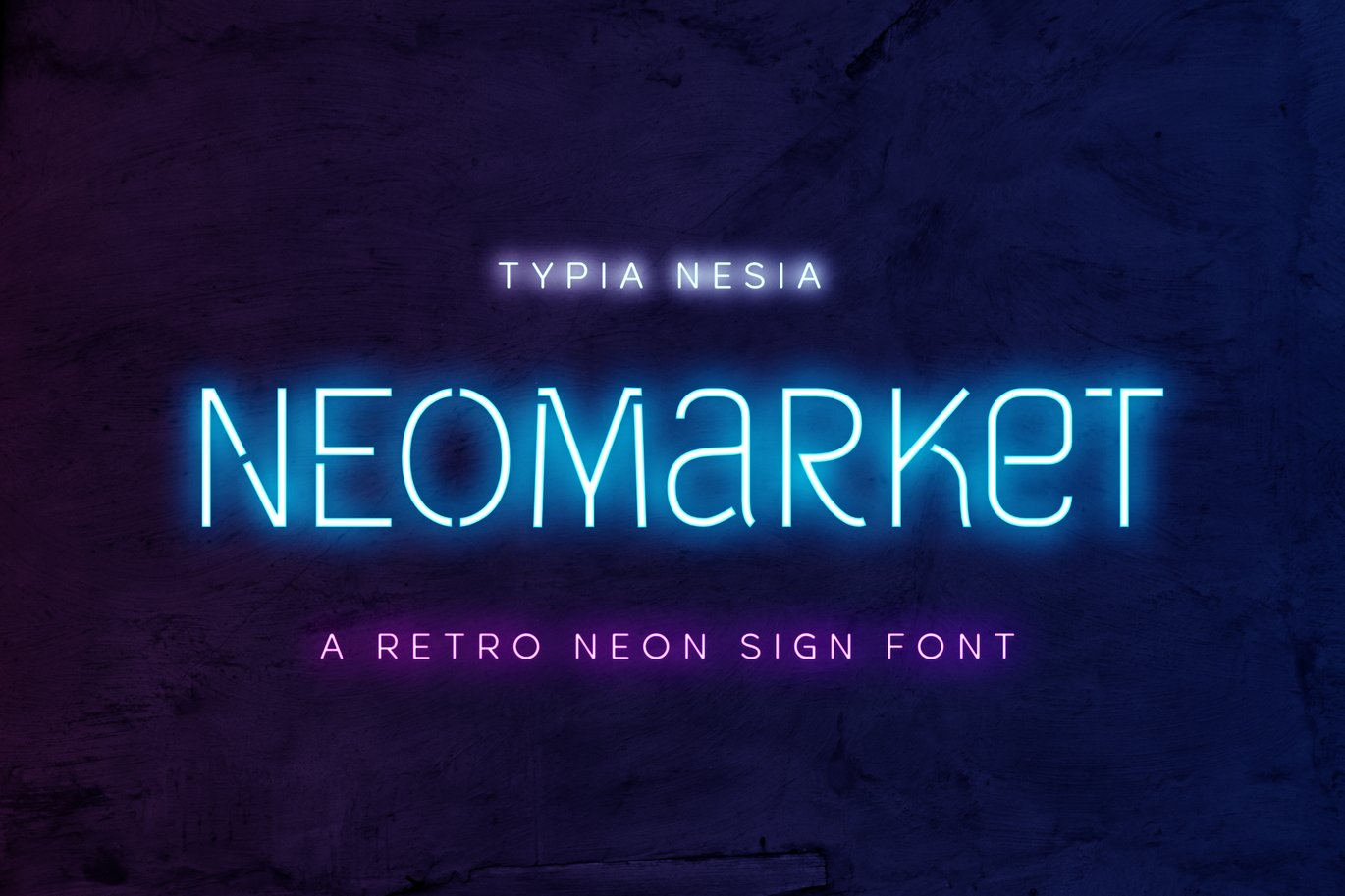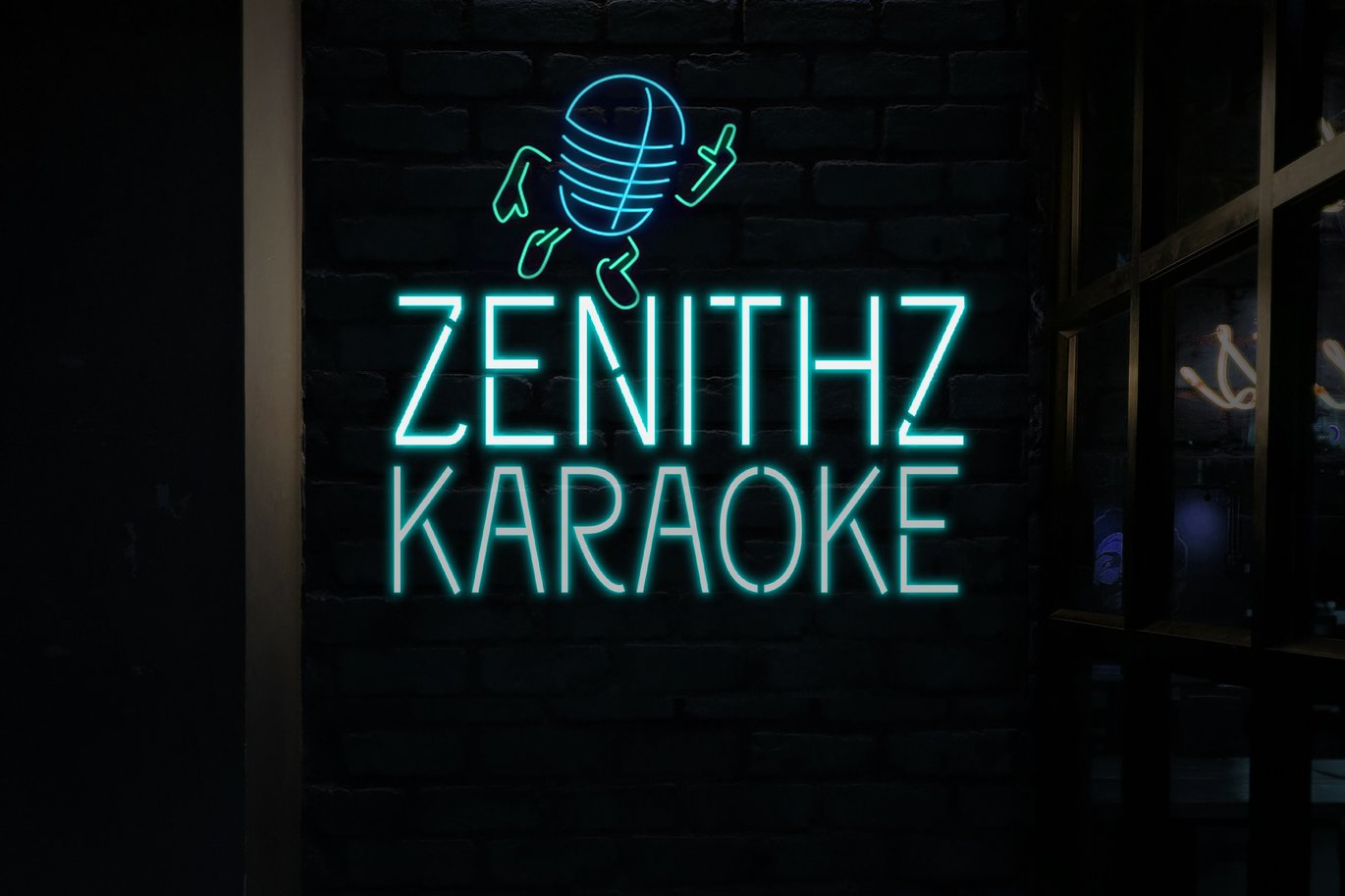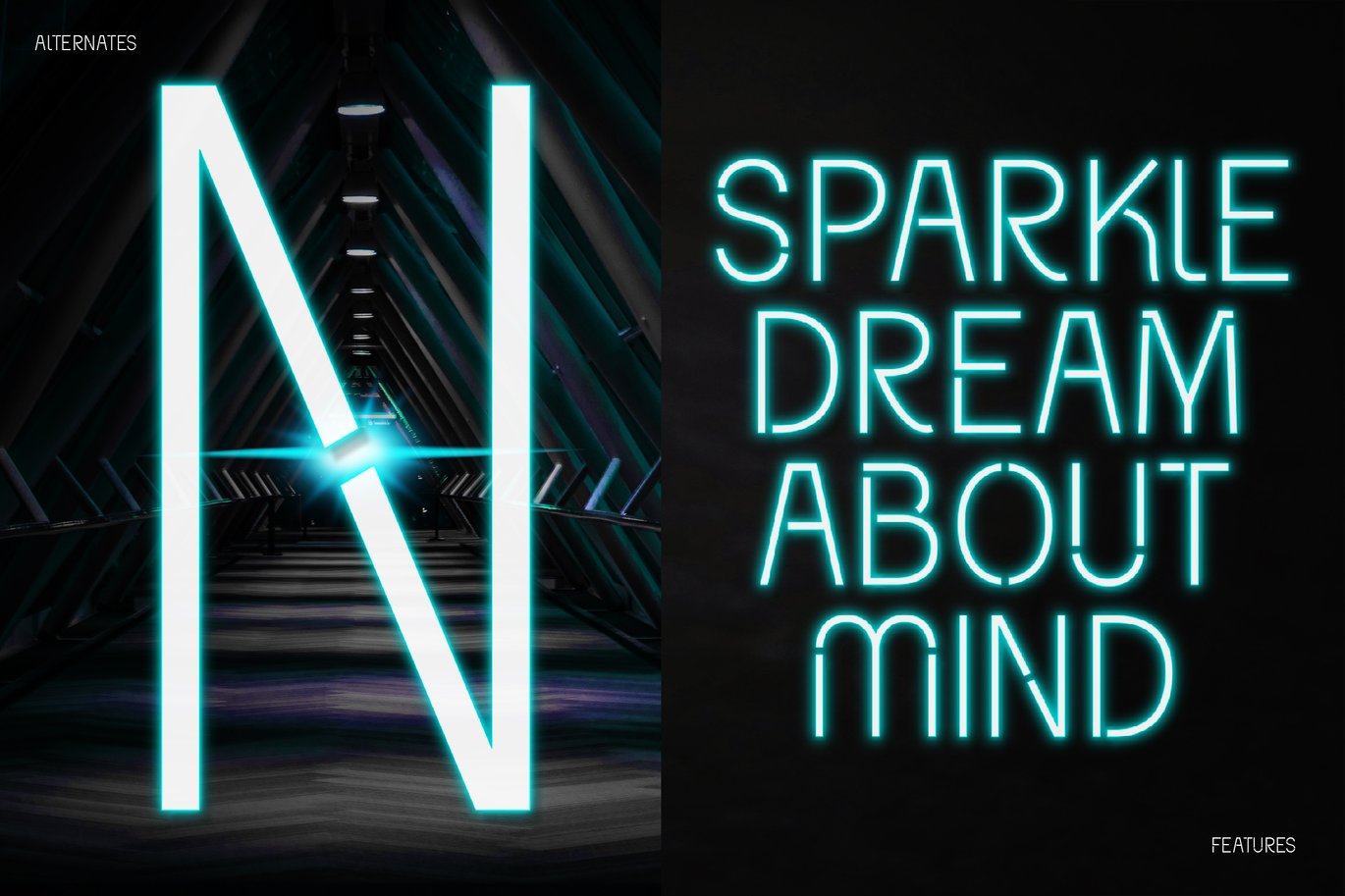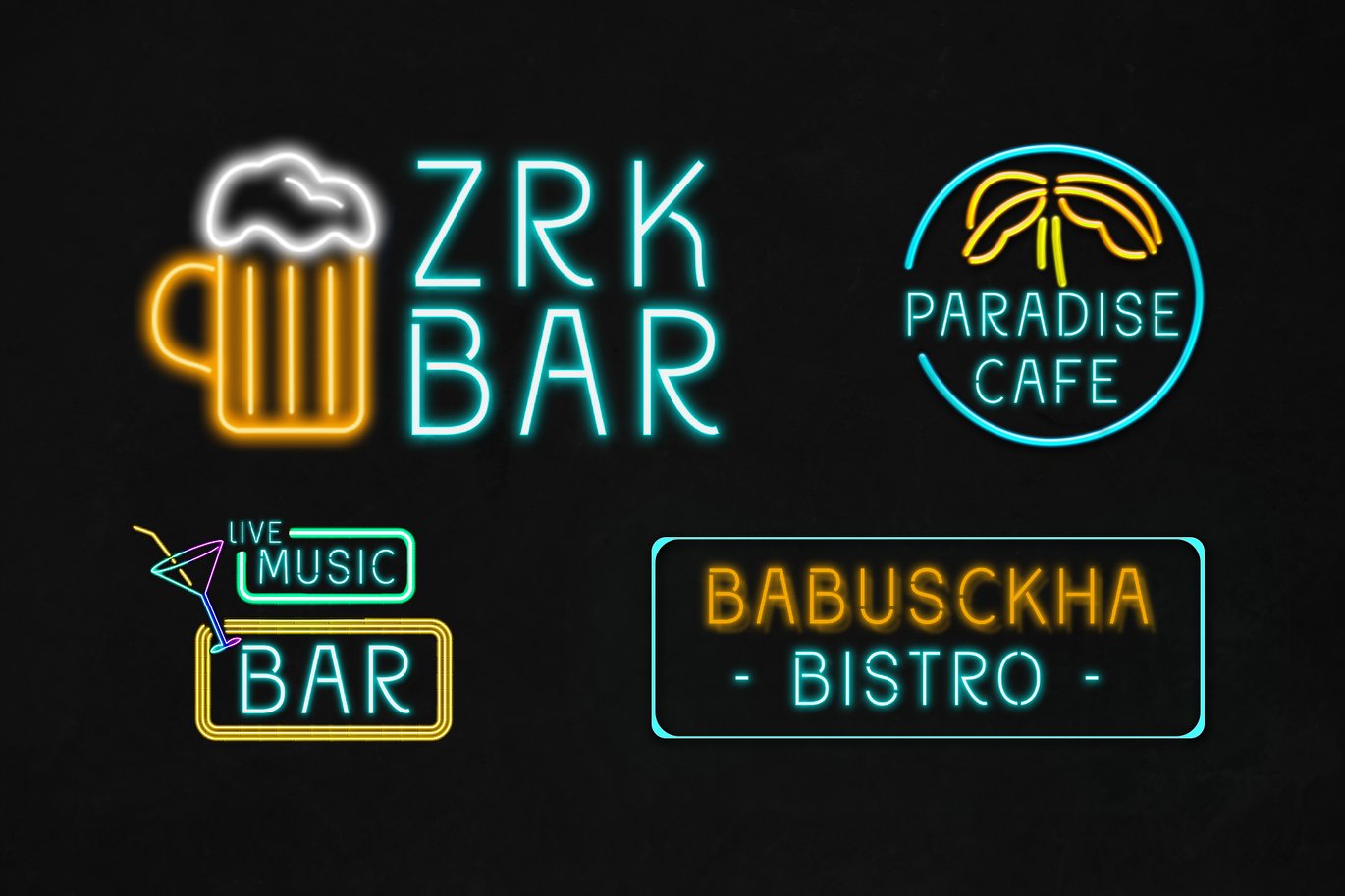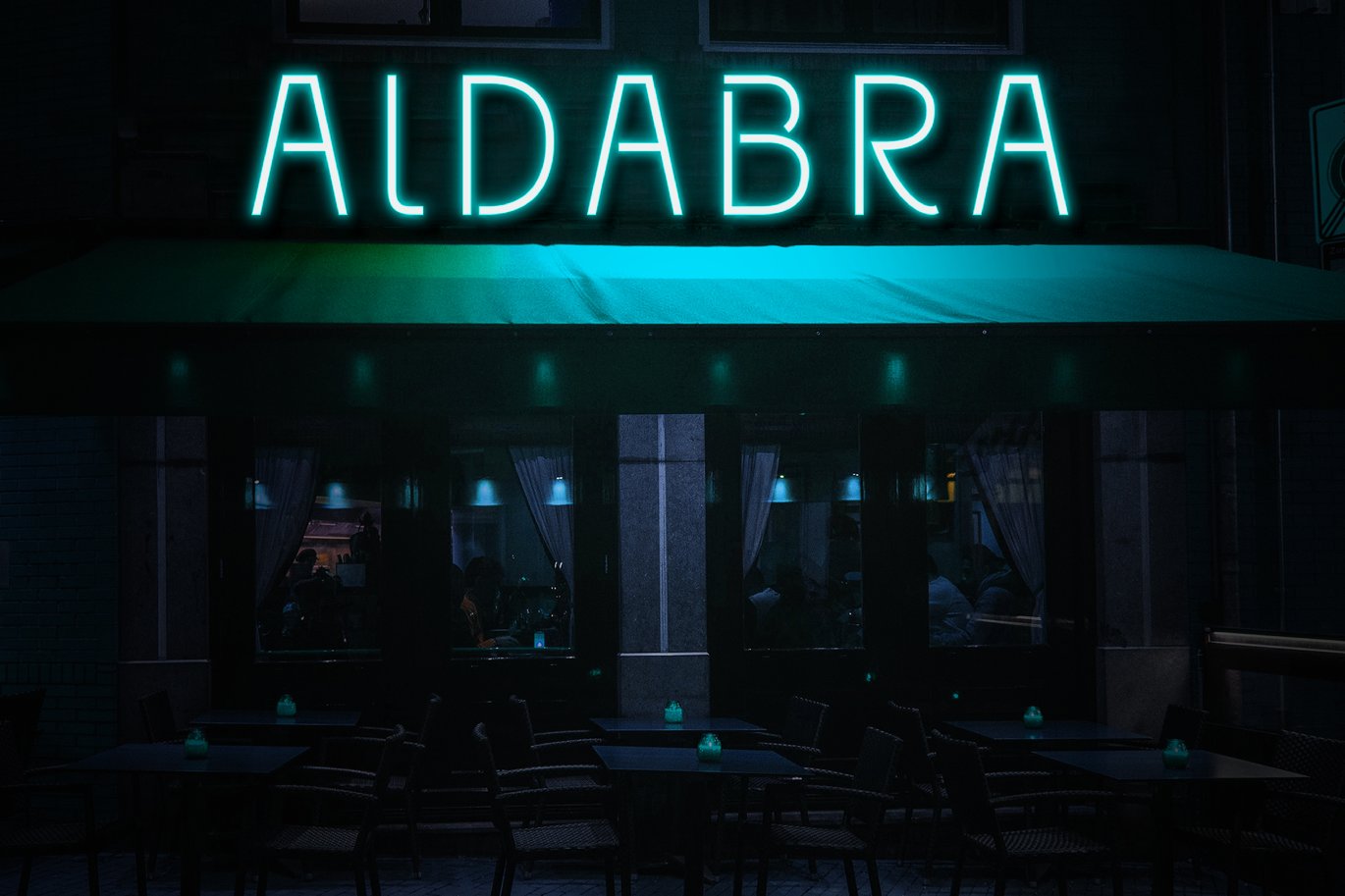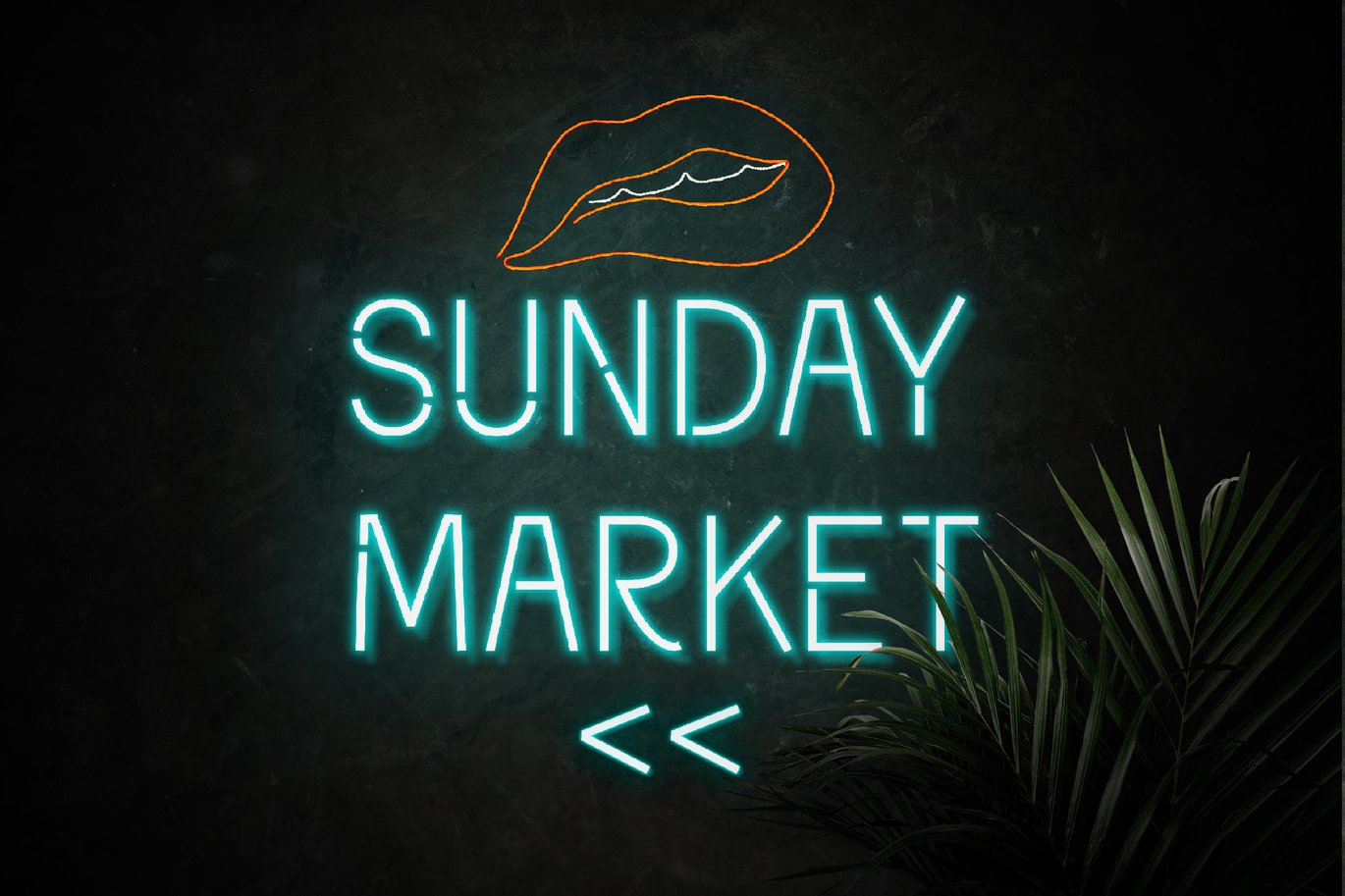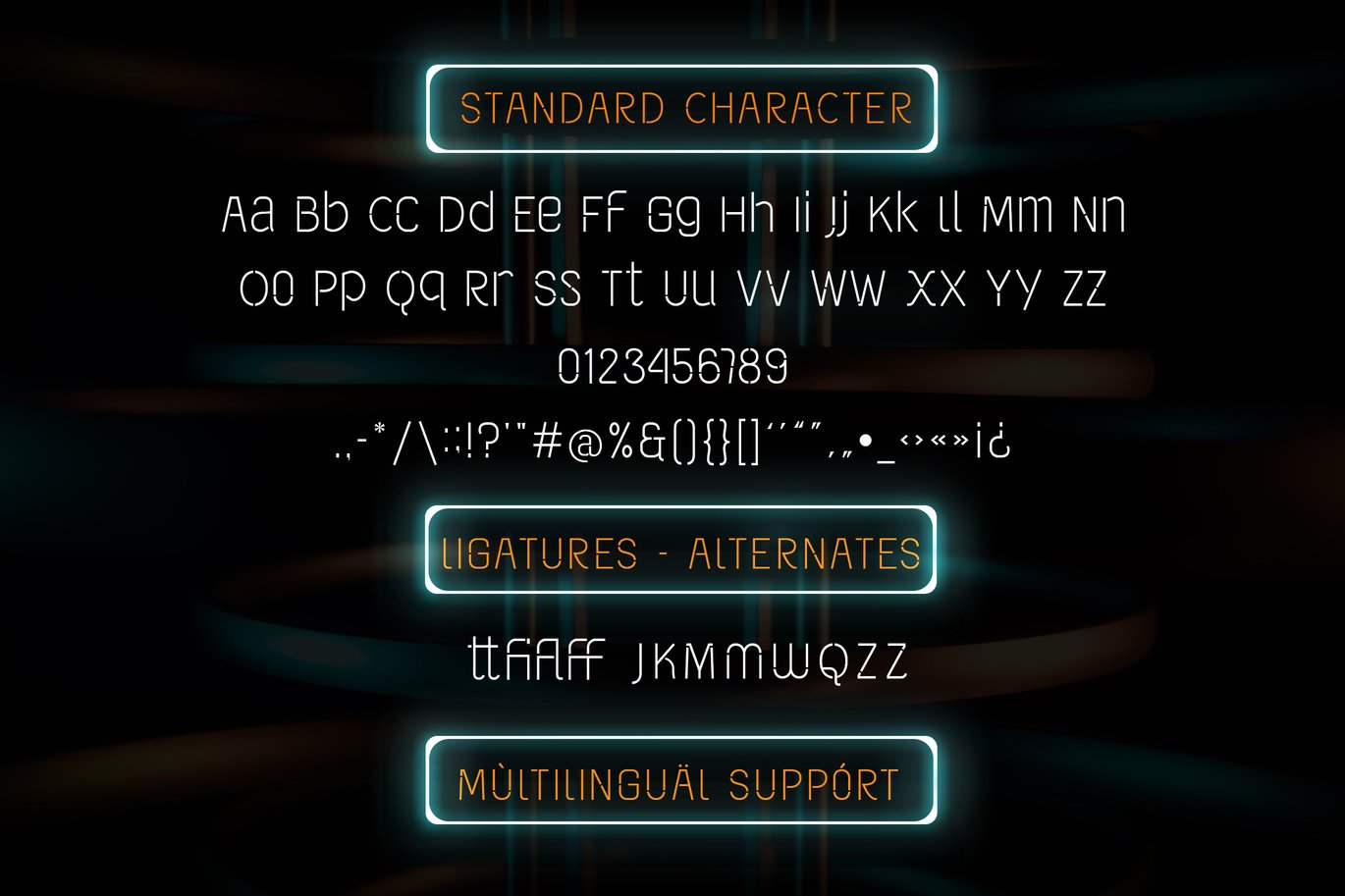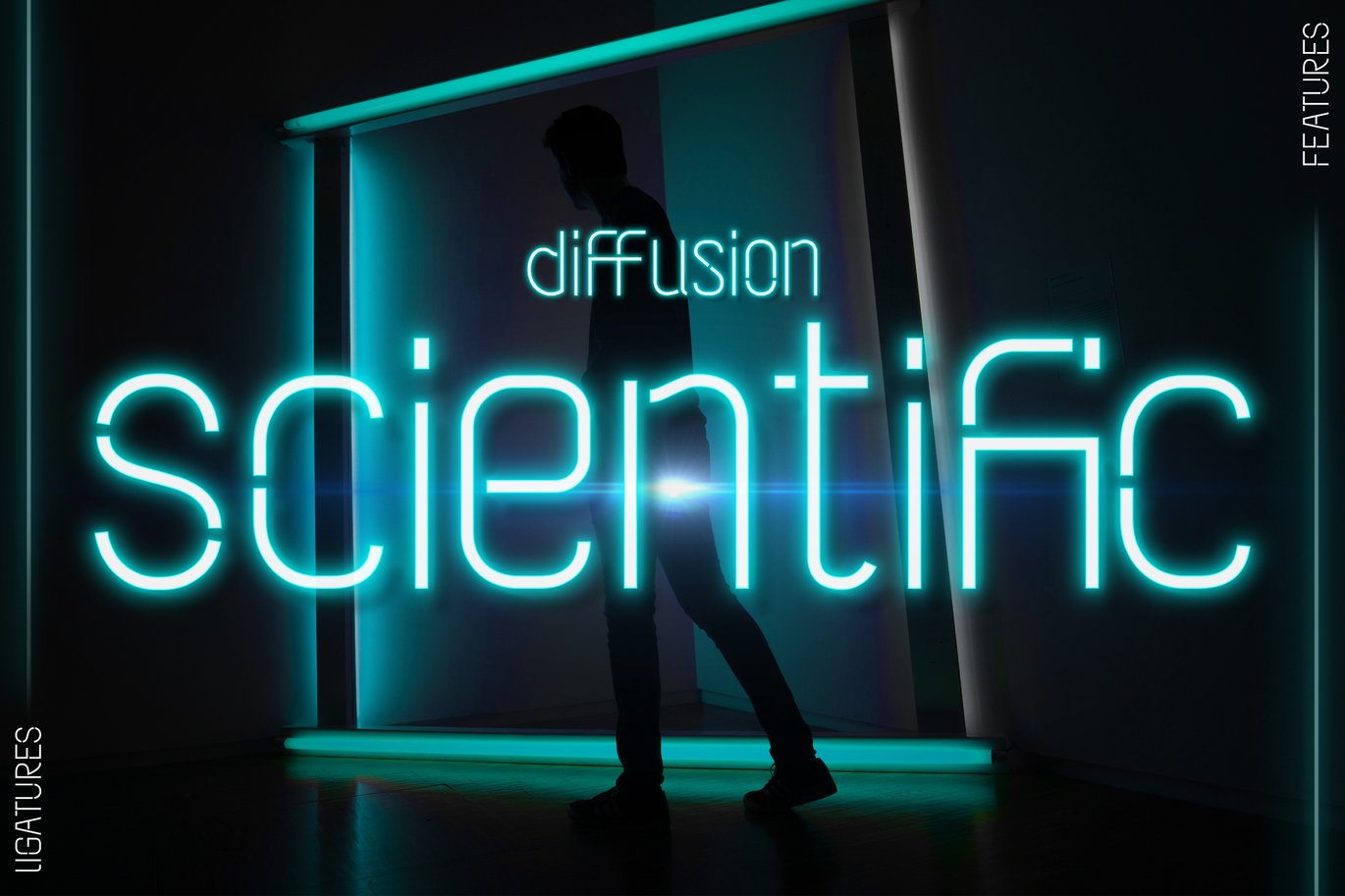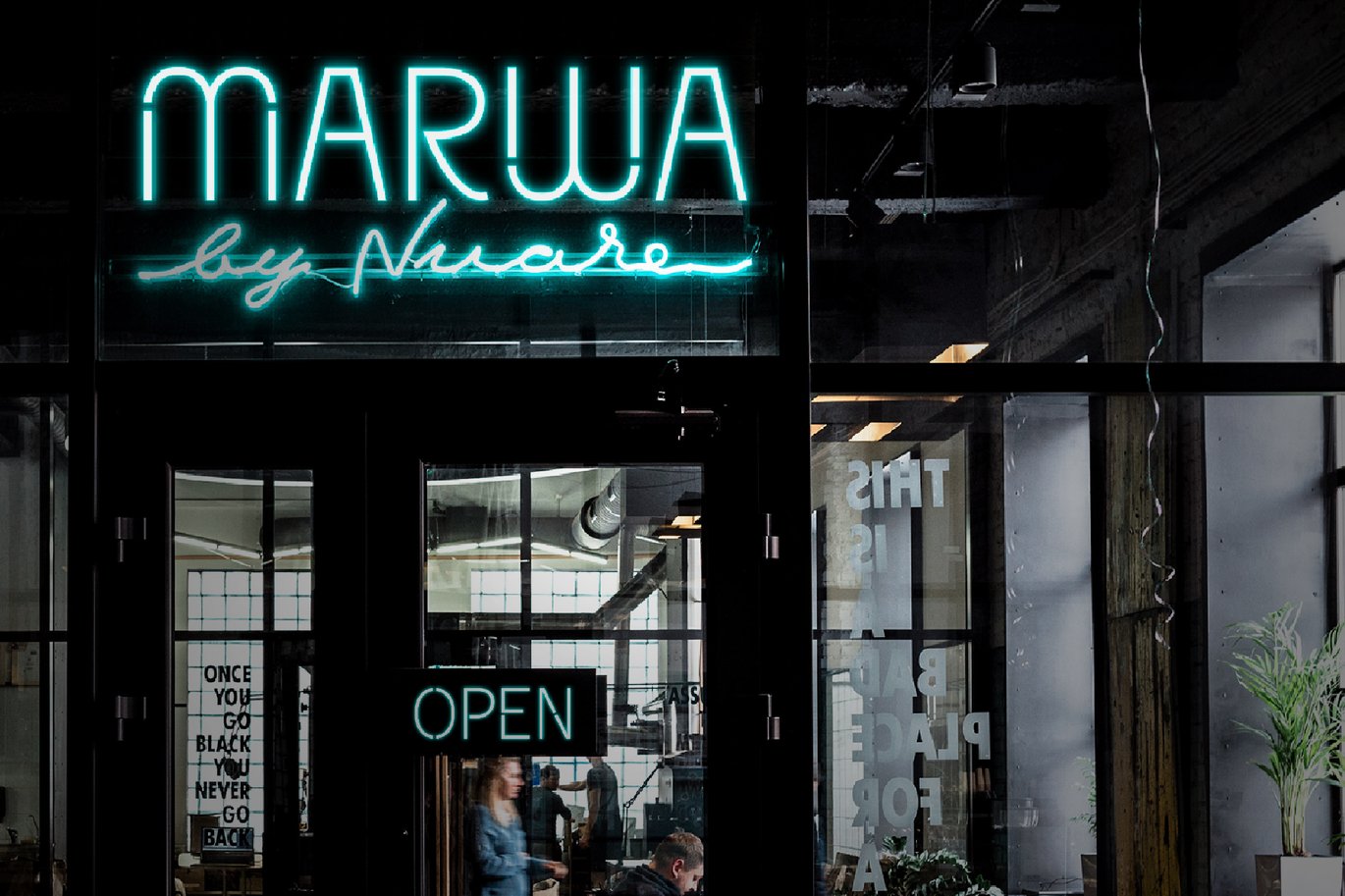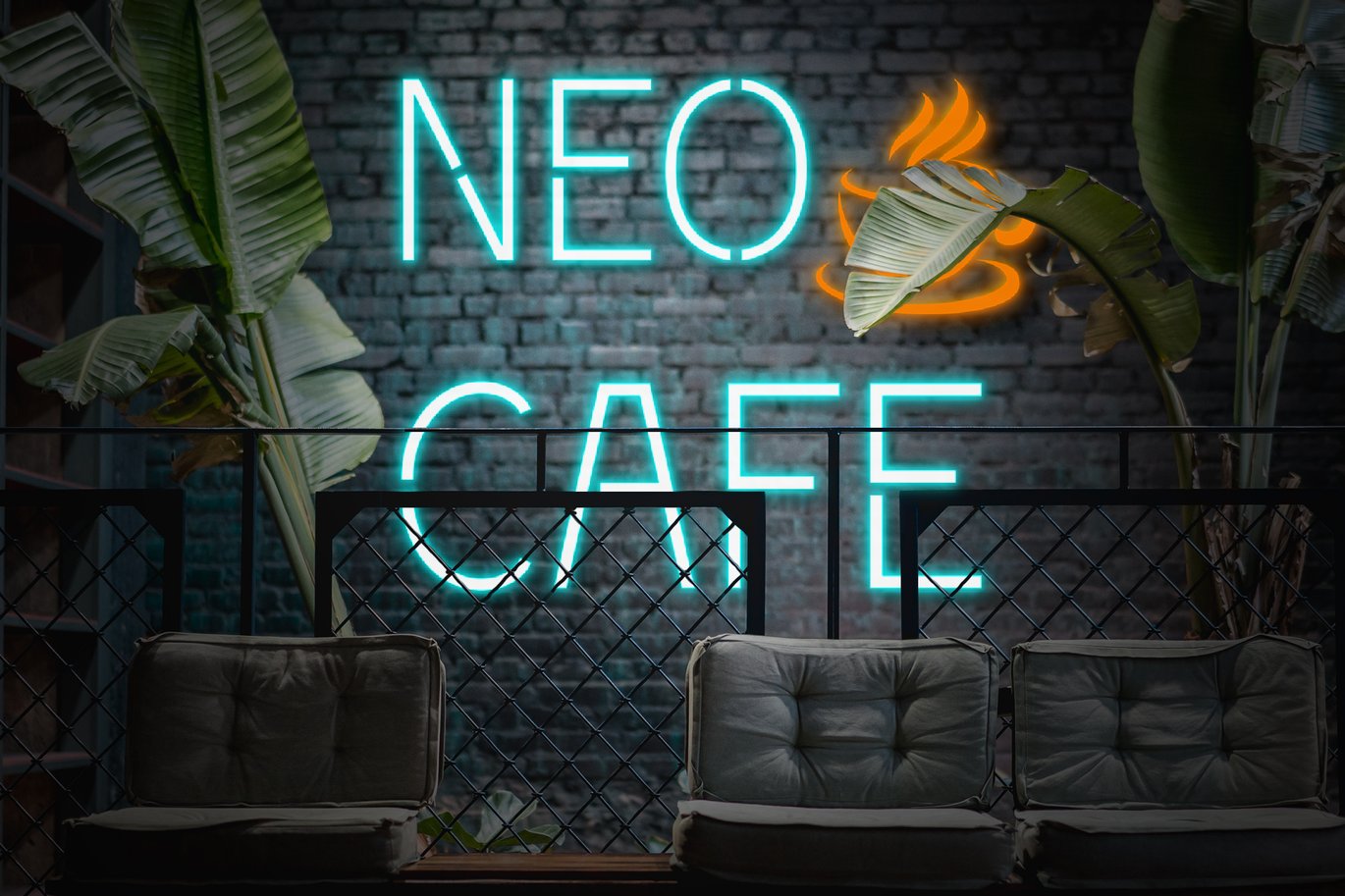
Neomarket – Retro Neon Sign Font
Neomarket – Retro Neon Sign – Sans Serif Font
Neomarket Display Font is perfect for your up coming projects. Such as logo branding, editorial design, stationery design, sport design, 80s retro design, game industry, music poster, blog design, modern advertising design, card invitation, art quote, home decor, book/cover title, special events and any more.